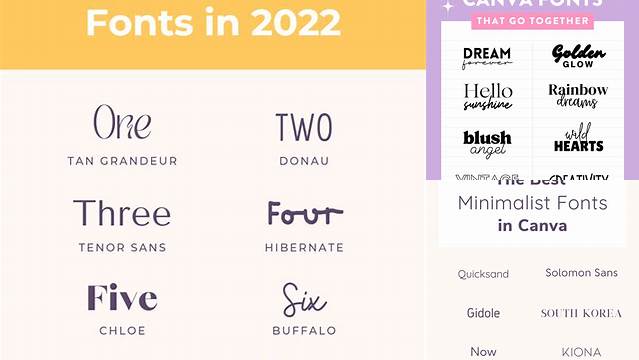
Canva Fonts: The Ultimate Guide To Typography
Hey guys! Ever wondered how to make your Canva designs really pop? Well, one of the biggest secrets is choosing the right fonts. Fonts can make or break a design, setting the mood and conveying your message effectively. So, let's dive deep into the world of fonts in Canva and turn you into a typography master!
Understanding Canva's Font Library
Canva boasts a massive library of fonts, both free and paid, catering to every conceivable design need. Navigating this vast collection can feel overwhelming, but don't worry, we'll break it down. You'll find everything from elegant serifs to modern sans-serifs, playful display fonts to practical script fonts. Seriously, there's something for everyone! When exploring Canva's font options, take the time to filter by style (like handwritten or bold), or even search for specific names if you have a particular font in mind. Getting familiar with what Canva offers is the first step to unlocking your design potential. Also, consider the vibe you're going for. A wedding invitation will need different fonts than, say, a flyer for a rock concert. Understanding your project's needs will help you narrow down your choices and find the perfect font match. And remember, you can always upload your own fonts if you have a specific brand identity or just want to add a personal touch. Canva gives you the flexibility to really make your designs your own.
How to Add and Use Fonts in Canva
Adding and using fonts in Canva is super easy, guys. First, select the text element you want to change. Then, in the toolbar at the top, you'll see the current font name. Click on that, and a dropdown menu will appear with all the available fonts. You can scroll through the list or use the search bar to find a specific font. Once you've found the perfect font, just click on it, and bam, your text will instantly update. But wait, there's more! You can also adjust the font size, color, spacing, and other attributes to fine-tune your design. Canva gives you a lot of control over your typography, so don't be afraid to experiment. And if you have a brand kit set up, you can easily access your brand fonts from the brand kit section. This makes it super convenient to maintain consistency across all your designs. Plus, Canva remembers your recently used fonts, so you can quickly access them again without having to search. It's all about making the design process as smooth and efficient as possible.
Best Font Combinations in Canva
Choosing the right font combinations is crucial for creating visually appealing and professional-looking designs. A good rule of thumb is to pair a bold or decorative font for headings with a simpler, more readable font for body text. Think of it like this: the heading grabs attention, while the body text delivers the message. Canva offers some fantastic font pairings right out of the box, so you don't have to reinvent the wheel. But if you want to get creative, try experimenting with different combinations yourself. For example, you could pair a serif font like 'Playfair Display' with a sans-serif font like 'Montserrat'. Or, you could try a script font like 'Brush Script MT' with a simple sans-serif font like 'Open Sans'. The key is to find fonts that complement each other and create a visual hierarchy. Avoid using too many different fonts in one design, as this can make it look cluttered and unprofessional. Stick to two or three fonts at most. And remember, readability is key. Choose fonts that are easy to read, especially for body text. After all, you want your audience to be able to understand your message.
Using Canva Fonts for Branding
Your choice of fonts plays a crucial role in establishing and maintaining your brand identity. Consistent use of specific fonts across all your marketing materials helps create a cohesive and recognizable brand. When choosing fonts for your brand, consider your target audience, your brand personality, and the overall message you want to convey. For example, a luxury brand might choose elegant serif fonts, while a tech startup might opt for clean sans-serif fonts. Canva's brand kit feature makes it easy to store your brand fonts and use them consistently across all your designs. You can also create templates with your brand fonts to ensure that all your designs adhere to your brand guidelines. Remember, your fonts are an integral part of your brand's visual identity, so choose them wisely. And don't be afraid to experiment with different font combinations to find the perfect match for your brand. Canva gives you the tools and flexibility to create a strong and consistent brand identity through your choice of fonts.
Pairing Fonts for Different Design Projects
Different design projects call for different font pairings. A website might require a different font combination than a social media post or a print brochure. When choosing fonts for a website, prioritize readability and user experience. Use clear and legible fonts for body text, and choose headings that are visually appealing but not distracting. For social media posts, you can be a bit more creative with your font choices, but still keep readability in mind. Use bold and eye-catching fonts for headlines, and pair them with simpler fonts for captions and descriptions. For print brochures, consider the overall design aesthetic and choose fonts that complement the visuals. Use high-quality fonts that will print well and maintain their legibility. Canva offers a wide range of fonts that are suitable for different design projects, so you're sure to find the perfect combination for your needs. And remember, don't be afraid to experiment and try out different font pairings until you find the one that works best for your project.
Font Size and Readability in Canva
Font size and readability are essential considerations in any design project. Choosing the right font size ensures that your text is easy to read and understand, regardless of the viewing medium. In Canva, you can easily adjust the font size using the toolbar at the top of the screen. Experiment with different font sizes to find the one that works best for your design. Consider the target audience and the viewing distance when choosing a font size. For example, a poster that will be viewed from a distance will require larger fonts than a business card that will be held close to the eye. Also, keep in mind that different fonts have different perceived sizes, so you may need to adjust the font size accordingly. Readability is also affected by factors such as font style, font color, and background color. Choose fonts that are easy to read against the background, and avoid using too many different font styles in one design. Canva provides tools to adjust font color and background color, allowing you to optimize readability for your designs. By paying attention to font size and readability, you can ensure that your message is effectively communicated.
Using Font Styles (Bold, Italic, Underline) in Canva
Font styles like bold, italic, and underline can be used to add emphasis and hierarchy to your text in Canva. Use bold to highlight important words or phrases, italic to add a subtle emphasis, and underline to draw attention to specific links or information. However, use these styles sparingly, as overusing them can make your text look cluttered and unprofessional. In Canva, you can easily apply font styles using the toolbar at the top of the screen. Simply select the text you want to style, and then click on the bold, italic, or underline button. You can also use keyboard shortcuts to apply these styles more quickly. Experiment with different font styles to see how they affect the overall look and feel of your design. Consider the purpose of your design and the message you want to convey when choosing which font styles to use. And remember, less is often more. Use font styles intentionally and strategically to enhance your design, not to distract from it.
Kerning and Letter Spacing Adjustments
Kerning and letter spacing are advanced typography techniques that can be used to fine-tune the appearance of your text in Canva. Kerning refers to the spacing between individual letters, while letter spacing refers to the overall spacing between all the letters in a word or phrase. Adjusting these settings can improve the readability and visual appeal of your text. In Canva, you can access kerning and letter spacing adjustments in the advanced options of the text toolbar. Experiment with different settings to see how they affect the appearance of your text. Pay attention to the spacing between letters that are close together, such as